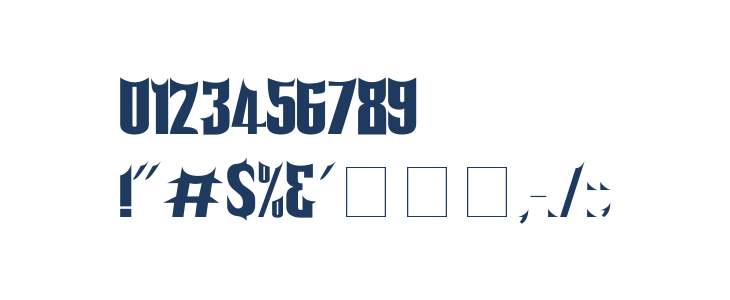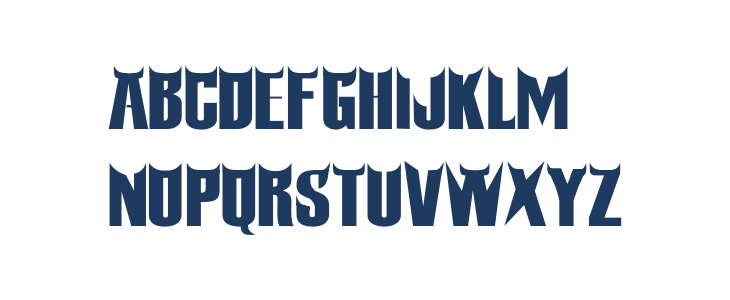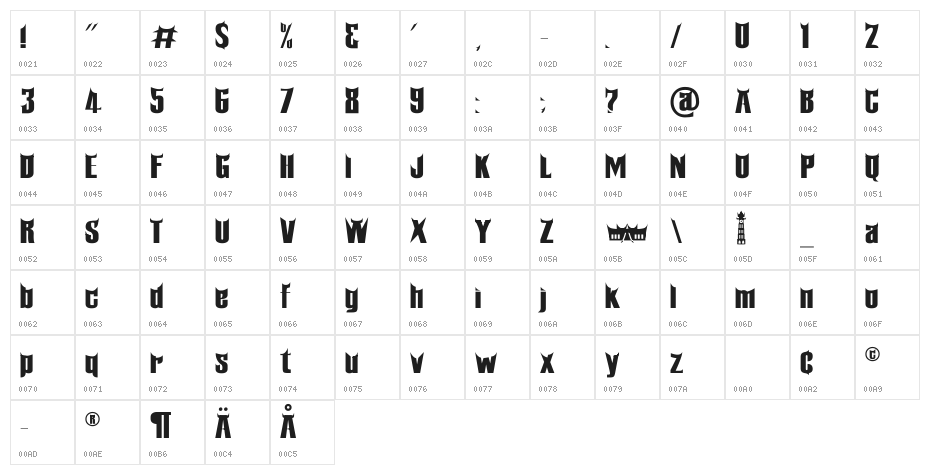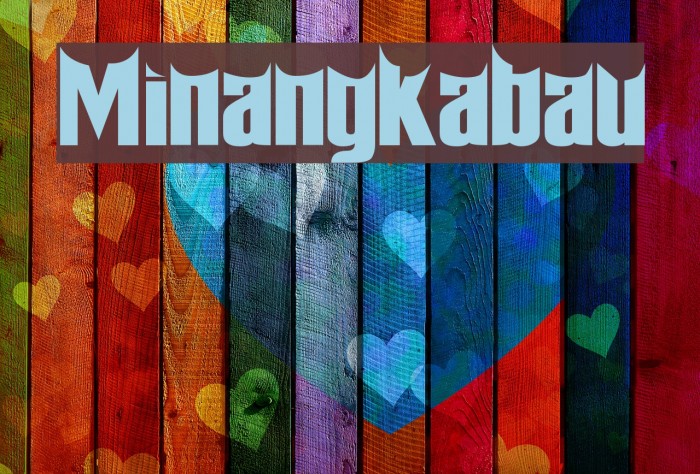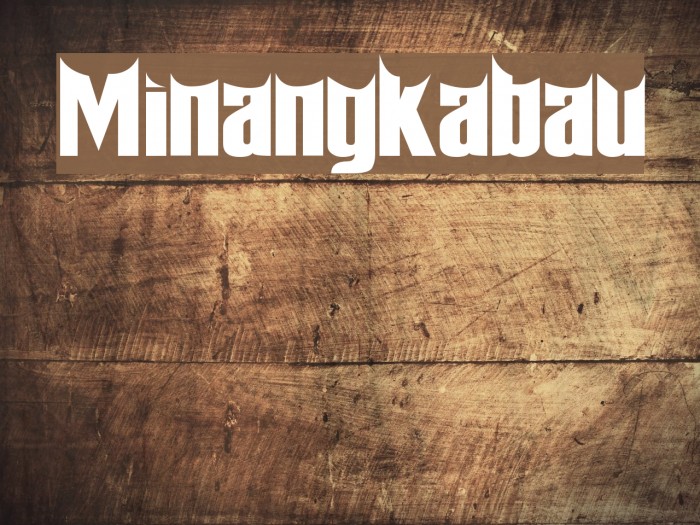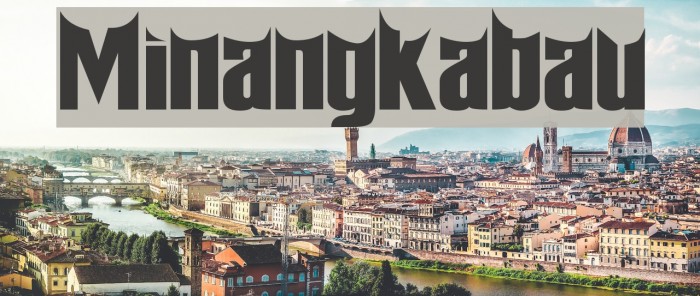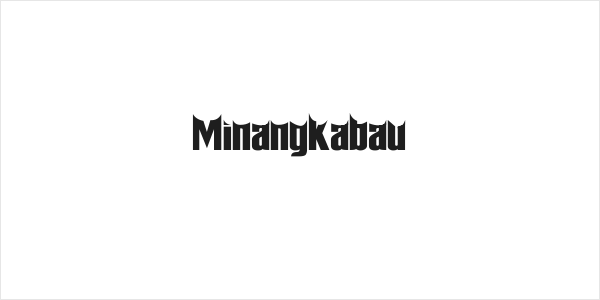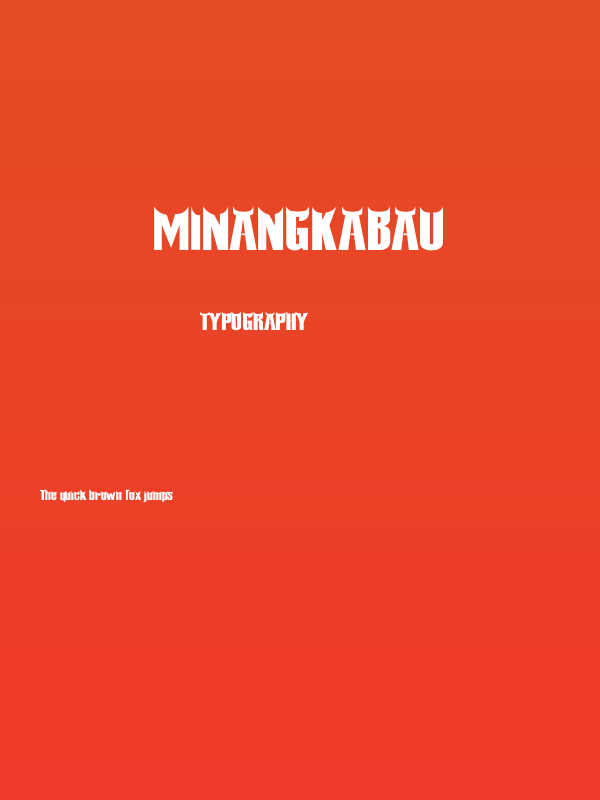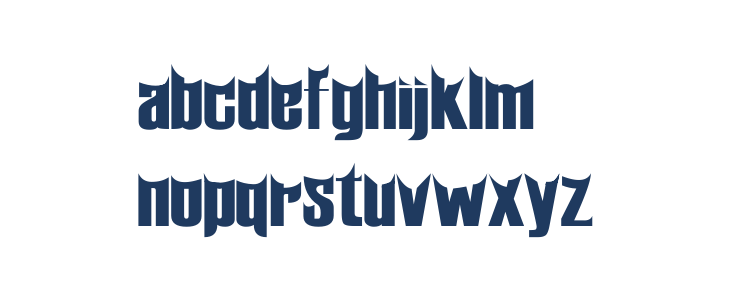
Minangkabau Font
Minangkabau Description
This font features a bold and striking design with sharp, angular edges and a strong presence. The uppercase letters are particularly distinctive, with exaggerated serifs and a sense of movement that adds dynamism. The lowercase letters maintain the boldness but with slightly softer curves, providing a nice contrast. Numbers and special characters are equally bold, ensuring consistency across all glyphs. The overall aesthetic is reminiscent of traditional and cultural motifs, making it ideal for projects that require a touch of heritage or a bold statement.
| Proposed Projects | Ideal for cultural event posters, logos, branding for traditional products, and any design needing a bold, heritage-inspired look. |